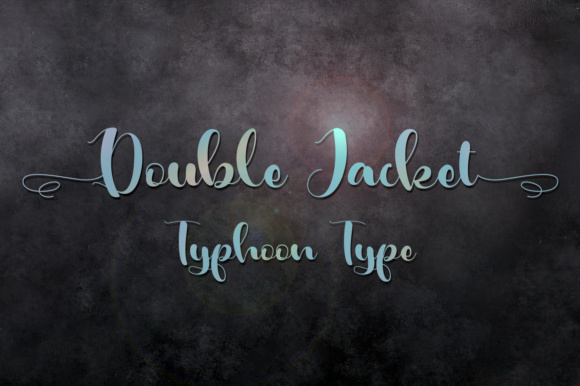
Double Jacket Font
About Double Jacket Font
This font perfect for logos, name tags, advertising, product packaging, clothing, social media & greeting cards.
Type ( before the word to get the beginning swash and type ) after the word to get the end swash. Example : (Double Jacket).